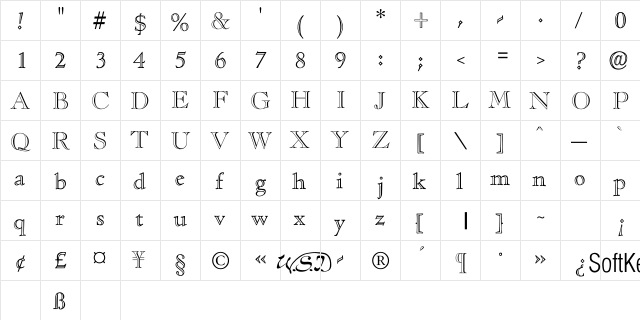
Casket OpenFace Regular
Design Context for Casket OpenFace Typeface
Casket OpenFace takes a measured approach to typography — its balanced proportions and neutral character make it a reliable workhorse for both digital and print work.